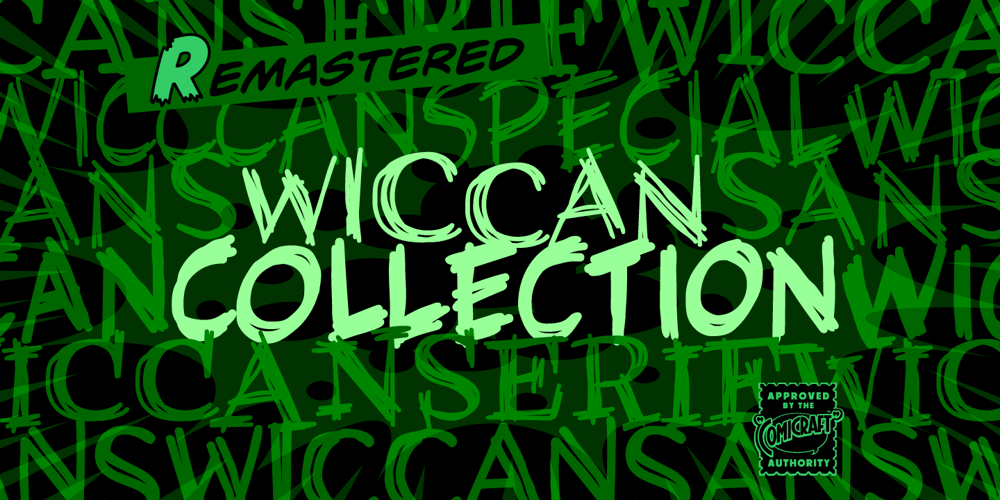
Wiccan Font Family was designed by John Roshell and published by Comicraft. Wiccan contains 1 styles and family package options. Way back in 1996, three student letterers went into the forest looking for the mysterious fonts used to letter Spawn: Blood & Shadows. They never returned. A year later, these fonts were found.And now, over 20 years later, we’ve updated Wiccan with separate Regular & Bold Special weights, Central Europe & Cyrillic characters, automatically cycling alternate letters and fan-favorite Crossbar I Technology!